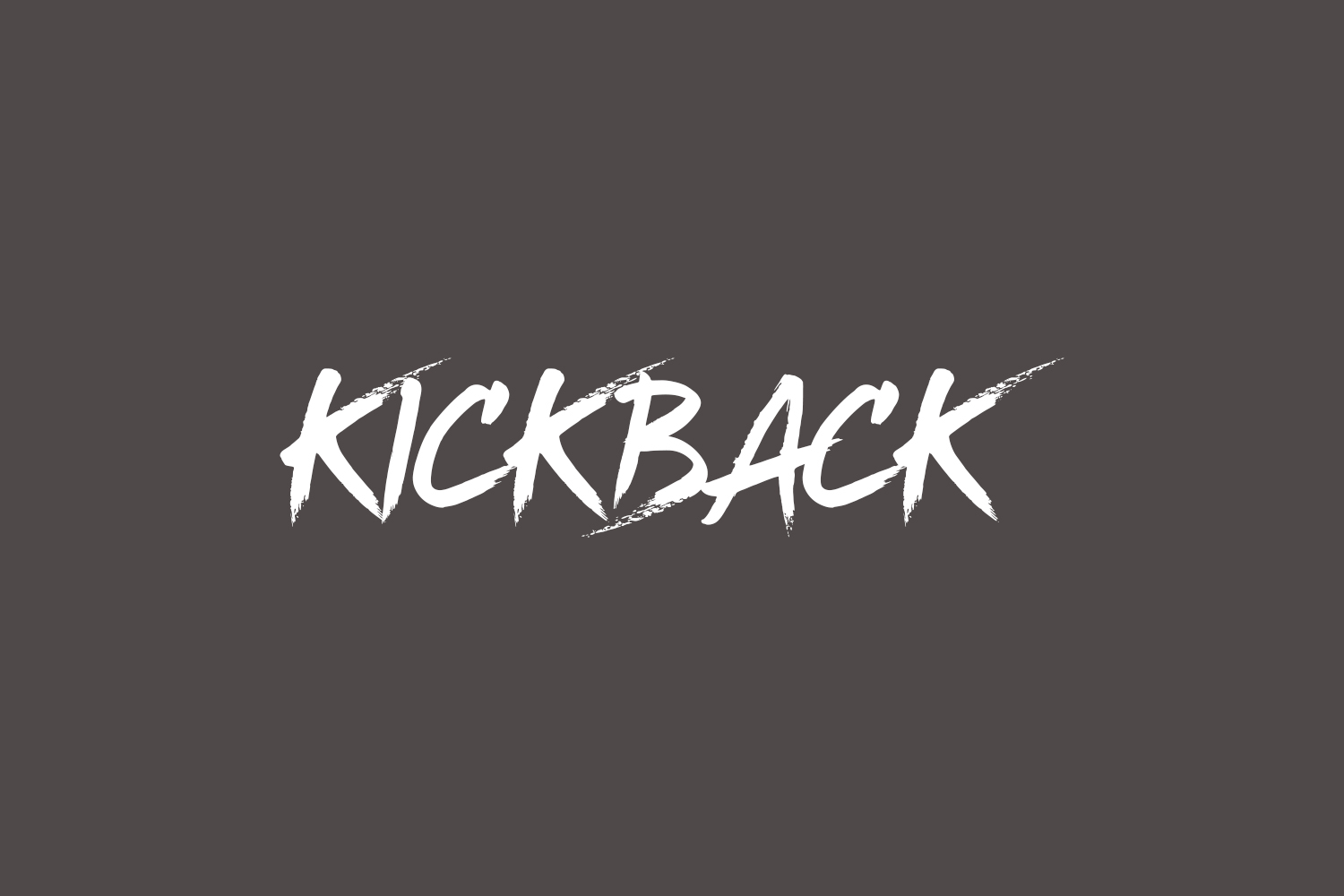
Kickback Free Font is a sharp and powerful brushed display font, featuring the perfect amount of trendiness. Whether you’re using it for crafting, digital designing, presentations, or greeting card making, it’s perfect. Kickback Free Font was designed by Tigadestd and is free for personal use only. Please purchase the full version for commercial use.